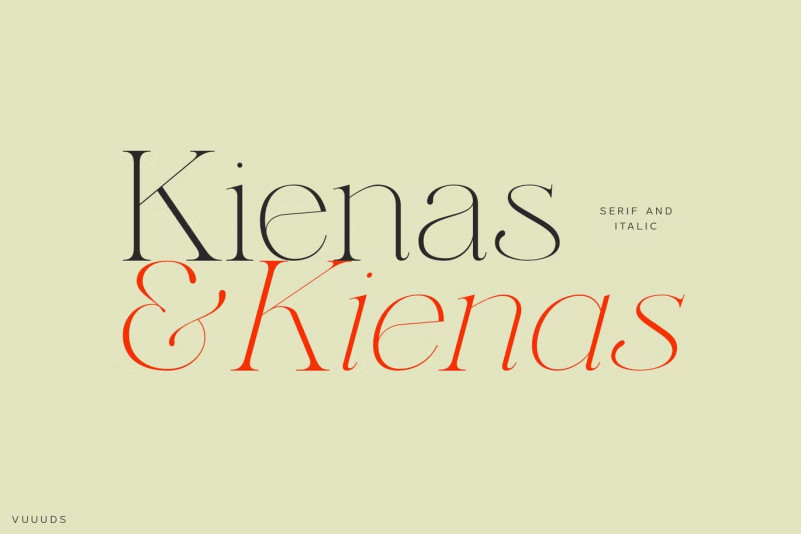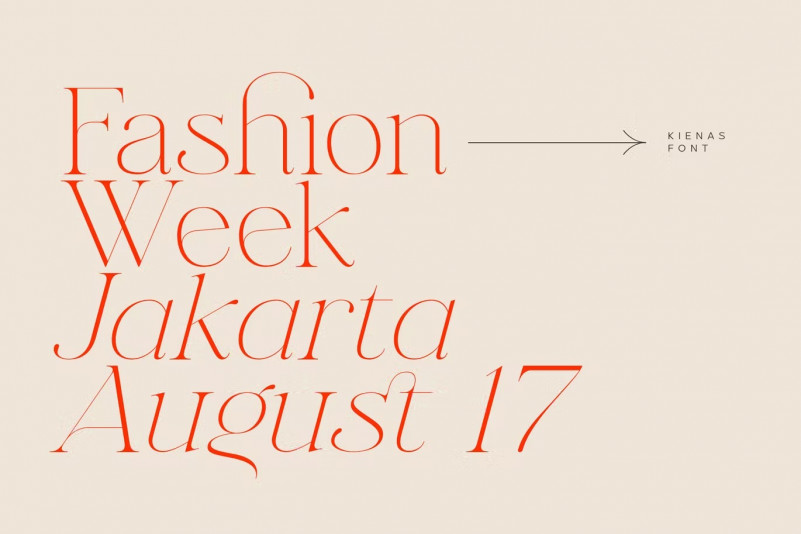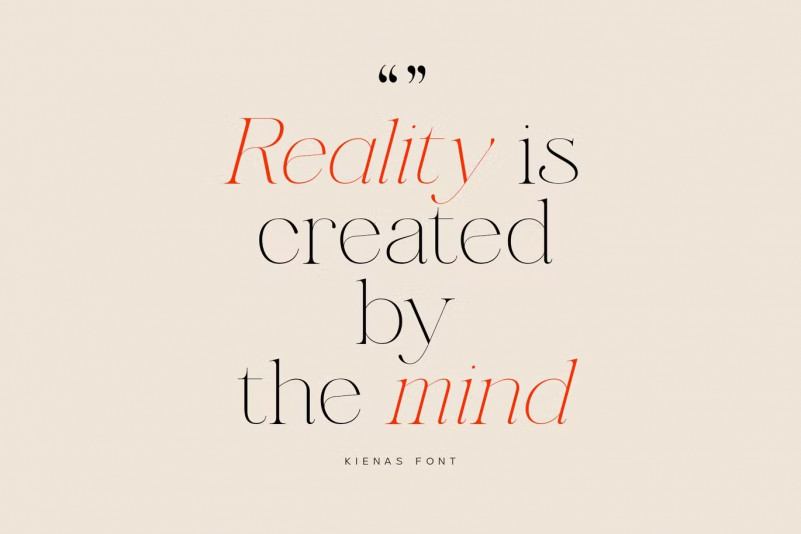
Kienas Font
Introducing Kienas Font!
Kienas is modern serif font, regular and italic style. every single letter has been carefully crafted.
Foreign languages ​​support: ÀÁÂÃÄÅÆÇÈÉÊËÌÍÎÏÐÑÒÓÔÕÖØÙÚÛÜÝàáâãäåæçèéêëìíîïðñòóôõöøùúûüýÿ